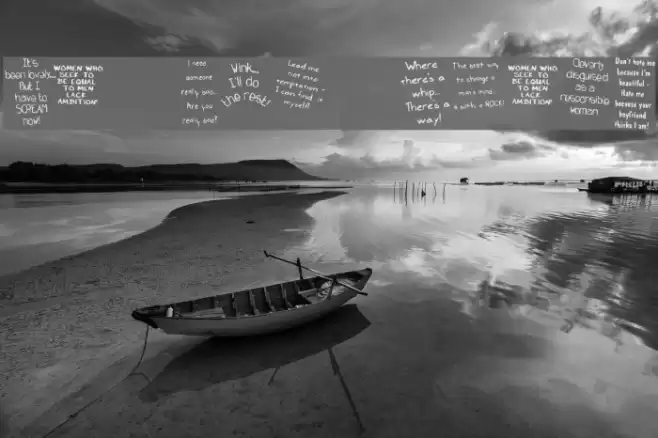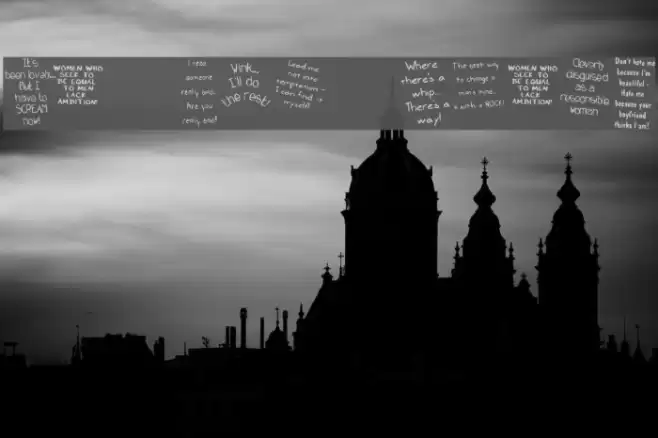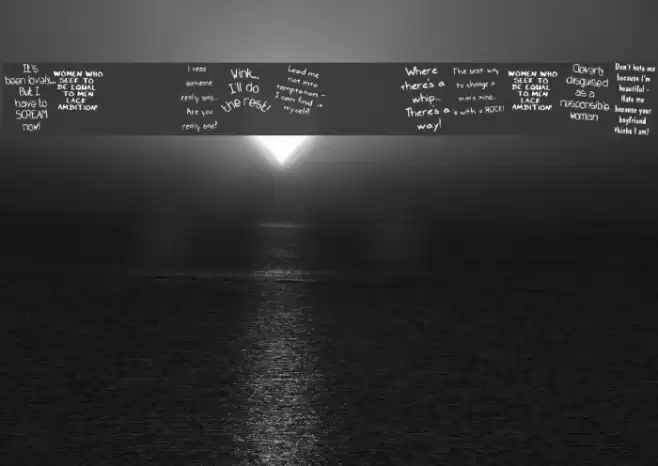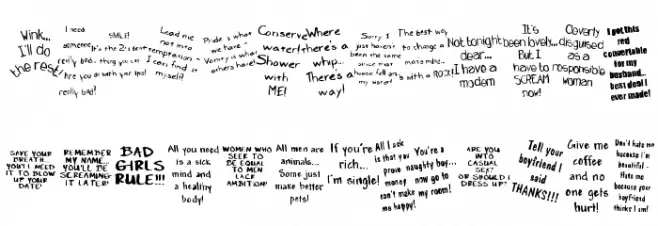
KR Bad Girlz Font
KR Bad Girlz Description
This font exudes a playful and rebellious spirit, characterized by its handwritten style with a casual, carefree flair. The letters are unevenly spaced, giving it a spontaneous and dynamic appearance. The strokes vary in thickness, adding to the font's informal and energetic vibe. It captures a sense of youthful exuberance and boldness, making it ideal for projects that aim to convey a sense of fun and individuality. The font's unique style is perfect for creative and unconventional designs, where a touch of personality is desired. Its distinctive look makes it stand out, ensuring that any message conveyed with this font is both eye-catching and memorable.
A playful, handwritten font with a rebellious and energetic style from Uncategorized fonts.
- Proposed Projects: Ideal for posters, album covers, social media graphics, and any creative project that requires a bold, individualistic touch.
- Character Spacing: Uneven
- Use Case: Headlines, Creative projects, Informal communications